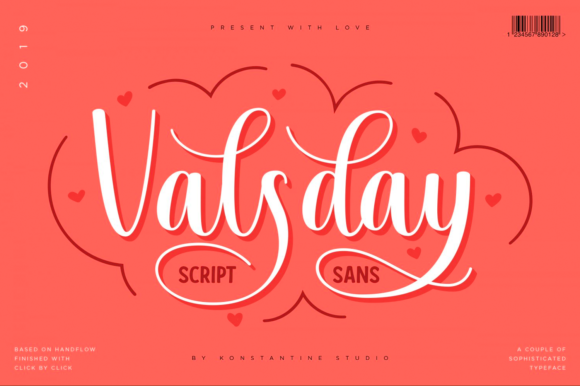
Journey into the realm of elegance and sophistication with Valsday, a captivating script font duo that will transform your creative vision into a masterpiece. This enchanting font family, lovingly crafted by konstantinestudio, is a visual symphony that harmonizes timeless beauty with modern aesthetics. Valsday is not just a collection of characters; it's an invitation to unleash your imagination and create designs that resonate with your audience.
With its flowing script style, Valsday gracefully dances across the page, evoking a sense of artistry and personal touch. Each letter is meticulously designed to capture the essence of handwritten elegance, adding a touch of warmth and charm to your projects. Whether you're crafting logos, branding materials, invitations, or social media posts, Valsday's script style will elevate your designs to new heights.
Complementing the script is Valsday's sans serif counterpart, a clean and refined font that provides the perfect balance to the flowing lines of the script. Its crisp and legible characters ensure clarity and readability, making it ideal for body text, subheadings, and other elements where legibility is paramount. Together, the script and sans serif styles of Valsday create a harmonious fusion that adds depth and dimension to your designs.
Dive into the endless possibilities that Valsday offers. Create breathtaking wedding invitations that capture the essence of romance, design eye-catching logos that exude professionalism, or craft social media posts that captivate your audience with their visual appeal. Valsday's versatility extends to a wide range of projects, from branding and marketing materials to personal invitations and social media graphics.
Valsday is more than just a font; it's an experience. Its carefully crafted characters and seamless combination of script and sans serif styles will elevate your designs, leaving a lasting impression on your audience. Embrace the beauty of Valsday and embark on a creative journey that will redefine your design aesthetics.